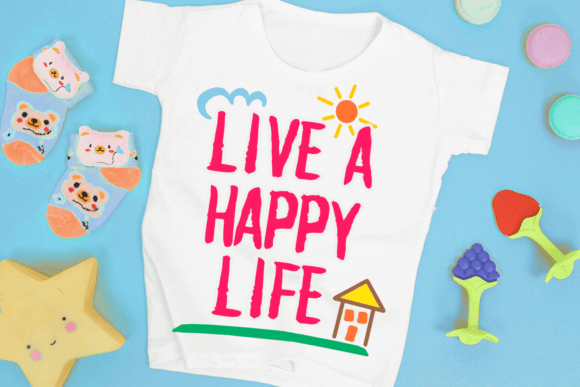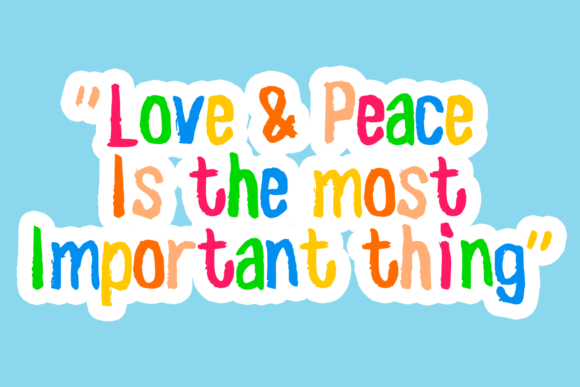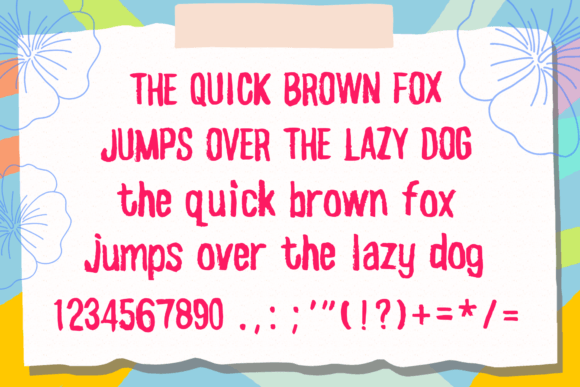
Crayon Pastel Font: Add a Touch of Whimsy to Your Designs
Are you looking for a font that can add a playful and casual touch to your designs? Look no further than the Crayon Pastel Font! This fun and versatile font is perfect for a wide range of projects, from t-shirts and book designs to packaging, greeting cards, stickers, and posters.
Crayon Pastel Font is a unique and creative font that is sure to capture the attention of your audience. Its playful and whimsical style makes it perfect for designers and crafters who want to add a personal touch to their work. Whether you’re creating a children’s book, designing a t-shirt, or crafting a greeting card, this font is sure to bring a smile to your face and your audience’s face.
Key Features of Crayon Pastel Font
- Playful and Whimsical Style: Crayon Pastel Font has a fun and playful style that is reminiscent of traditional crayon drawings.
- Versatile: This font can be used for a wide range of projects, from digital designs to print materials.
- Easy to Read: Despite its playful style, Crayon Pastel Font is easy to read and understand, making it perfect for body text and headings.
- Customizable: You can customize the font to fit your needs, adjusting the size, color, and style to match your brand or design.
Uses for Crayon Pastel Font
Crayon Pastel Font is a versatile font that can be used for a wide range of projects, including:
- T-Shirts and Apparel: Add a playful touch to your t-shirt designs with Crayon Pastel Font.
- Book Designs: Use Crayon Pastel Font to create eye-catching book covers, illustrations, and text.
- Packaging: Add a personal touch to your packaging designs with this fun and playful font.
- Greeting Cards: Create unique and personalized greeting cards with Crayon Pastel Font.
- Stickers and Posters: Use Crayon Pastel Font to create fun and colorful stickers and posters.
Tips for Using Crayon Pastel Font
Here are some tips for using Crayon Pastel Font in your designs:
- Pair with Other Fonts: Pair Crayon Pastel Font with other fonts to create a unique and interesting contrast.
- Experiment with Colors: Try out different colors and color combinations to find the perfect match for your design.
- Use for Headings and Titles: Use Crayon Pastel Font for headings and titles to add a playful touch to your design.
- Keep it Simple: Don’t be afraid to keep your design simple and clean, letting the font speak for itself.
Crayon Pastel Font is a fun and playful font that is perfect for designers and crafters who want to add a personal touch to their work. With its versatile style, ease of use, and wide range of applications, this font is sure to become a favorite in your design arsenal. So why wait? Fall in love with Crayon Pastel Font and start creating lovely designs today!
- Crayon Pastel Font is a fun and playful font perfect for a wide range of projects.
- Its versatile style makes it easy to use for both digital and print designs.
- It’s easy to read and customize, making it perfect for body text and headings.
- Use it for t-shirts, book designs, packaging, greeting cards, stickers, and posters.